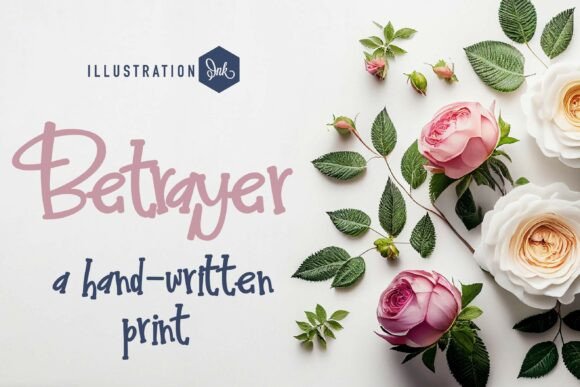
The Emotional Elegance of Betrayer Font: A Designer’s Delight
I’ll never forget the time I was working on a romantic wedding invitation project, and my client asked me to add a special quote that captured the essence of their love story. I spent hours searching for the perfect font, and just when I thought I’d never find it, I stumbled upon Betrayer Font. Its sweeping curves and expressive character shapes instantly spoke to me, and I knew I had found the one. In this article, I’ll share my love for Betrayer Font, its features, and how to make the most of it in your designs.
A Personal Review: What I Love About Betrayer Font
Betrayer Font has quickly become one of my go-to fonts for sentimental projects. Here’s what I love about it:
• ✨ Emotional elegance: Betrayer Font exudes a sense of sophistication and romance, making it perfect for wedding invitations, love letters, and other sentimental designs.
• ✅ Hand-drawn print style: The font’s hand-drawn feel adds a personal touch to any design, making it feel more authentic and unique.
• 💕 Expressive character shapes: The font’s characters are designed with sweeping curves and expressive shapes, giving your text a sense of movement and emotion.
While Betrayer Font is an amazing font, it’s not without its quirks. Here are a few things to keep in mind:
• ⚠️ Limited use in formal designs: While Betrayer Font is perfect for romantic designs, it may not be the best choice for formal or corporate projects.
• 🤔 Some characters may require manual kerning: Depending on the text and font size, some characters may require manual kerning to achieve optimal spacing.
The Backstory of Betrayer Font
Betrayer Font was designed by a talented type designer who wanted to create a font that captured the essence of emotional elegance. Inspired by handwritten letters and romantic quotes, the designer poured their heart and soul into creating a font that’s both beautiful and expressive. While the designer’s story is shrouded in mystery, their passion for typography shines through in every character of Betrayer Font.
Font Name Betrayer Font
Author Illustration Ink
What is Betrayer Font best used for? Betrayer Font is perfect for sentimental designs, like wedding invitations, love letters, and romantic quotes.
Is Betrayer Font suitable for formal designs? While Betrayer Font is elegant, it may not be the best choice for formal or corporate designs. Consider using a more traditional font for these types of projects.
Does Betrayer Font support OpenType features? Yes, Betrayer Font supports OpenType features like glyphs and stylistic alternates. Experiment with these features to add more personality to your text.